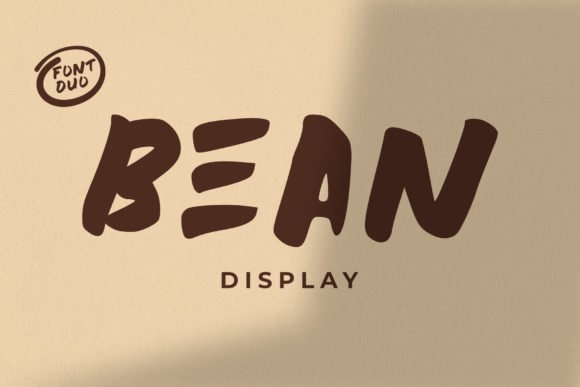
Unleash Your Creativity with the Bold and Chunky Bean Font
Have you ever stared at a blank canvas, trying to bring your idea to life but struggling to find the right words? You’re not alone. As creatives, we’ve all been there – searching for the perfect font to give our vision the oomph it needs. That’s where the Bean Font comes in – a bold and chunky lettered display font designed to make your ideas stand out from the crowd.
This versatile font is perfect for adding a touch of personality to your designs. Whether you’re a graphic designer, artist, or simply someone who loves to get creative, the Bean Font is an invaluable addition to your toolkit. Its unique style and bold personality make it a game-changer for anyone looking to make a statement.
Bean Font Key Features
- Font Family: The Bean Font family includes 6 different font styles, each with its unique characteristics and flair.
- Unique Characteristics: The Bean Font is known for its playful, handwritten feel and is often used in creative and artistic applications.
- Character Set: The font family includes a wide range of characters, including Latin, Cyrillic, and Greek alphabets, making it suitable for multilingual designs.
Bean Font Review
Overall, I was excited to dive into the Bean Font and see what it had to offer. As a designer, I appreciate unique and playful fonts, and this one definitely fits the bill. ✨ The whimsical feel and quirky character shapes make it perfect for adding some personality to branding and marketing materials.
- One of the things I love about Bean Font is its versatility. It comes in a range of weights and styles, from light to bold, and even has some fun extras like swashes and ligatures. ✨ This makes it easy to use in a variety of contexts, from body text to headlines.
- I also appreciate the fact that Bean Font is highly legible, even at small sizes. This is especially important for digital use, where text can get lost in the noise. ✨
That being said, I do have a few criticisms. ⚠️ One of the main issues I have with Bean Font is its limited character set. While it’s great for the basic Latin alphabet, it falls short when it comes to more complex languages like Arabic or Chinese. This makes it less useful for global branding efforts.
Another issue I have is the font’s tendency to get a bit too ornate in certain weights. While I appreciate the playful feel, it can sometimes come across as too busy or overwhelming. ⚠️
Overall, I would say that Bean Font is a solid choice for designers looking for a fun and quirky font. While it has its limitations, it’s a great addition to any designer’s toolkit. With a bit of careful planning and consideration, it can add some much-needed personality to your designs.
Tips for Getting the Most Out of Bean Font
Use Bean Font in conjunction with bold or italic text to create a sense of emphasis and hierarchy in your design. Experiment with different font sizes and colors to add visual interest. Consider using Bean Font in combination with other fonts to create a unique and eye-catching design.
Bean Font is particularly useful for creating playful and whimsical designs, such as children’s books, party invitations, and social media graphics. It’s also a great choice for adding a touch of personality to business presentations and marketing materials.